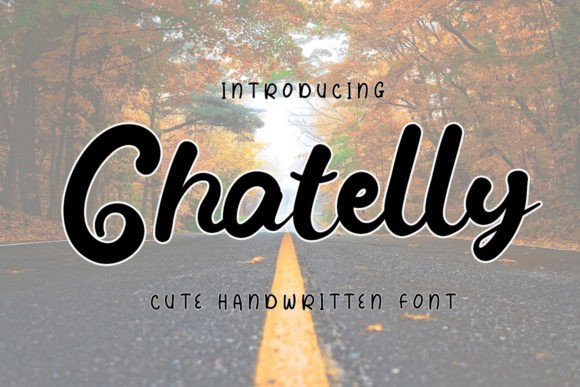
Introducing Ghatelly Font, the perfect script font for all your lettering needs. Created by the talented Mr.Soon Design, this font is not just beautiful and sweet, but also fresh, clean, and elegant. With its unique style and versatile nature, Ghatelly is guaranteed to make your designs shine!
Whether you're working on a formal invitation, a casual greeting card, or even a trendy logo, Ghatelly will elevate your projects to new heights. Its captivating curves and graceful strokes will add an incredibly joyful touch, making every word come to life with charm and personality.
Imagine your wedding invitations adorned with the enchanting Ghatelly Font, setting the tone for an unforgettable celebration. Picture your brand's logo beautifully crafted with Ghatelly, instantly captivating your audience and leaving a lasting impression. With Ghatelly, the possibilities are endless.
With its extensive range of glyphs and ligatures, Ghatelly offers a seamless and smooth lettering experience. Each character is meticulously designed to ensure legibility and readability, making it a breeze to create stunning typography. Let your creativity run wild as you mix and match different letter combinations, adding a unique and personal touch to your designs.
Ghatelly Font is not just a font; it's an invitation to explore the world of creativity. It sparks inspiration and unleashes your imagination, allowing you to express your ideas with confidence and style. Embrace the beauty of Ghatelly and watch as your designs come to life in ways you never thought possible.